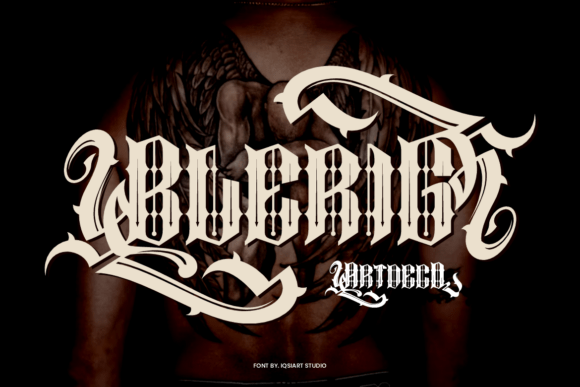
The Blerig Font: A Bold, Art-Deco-Inspired Blackletter Masterpiece
I’ll never forget the design project that led me to discover the Blerig font. I was working on a logo design for a tattoo artist, and I needed a font that would convey a sense of rebellion, strength, and heritage. After hours of searching, I stumbled upon Blerig, and it was love at first sight. The unique blend of traditional Gothic structure and dramatic ornamental flair instantly resonated with the project’s aesthetic. In this article, I’ll share my experience with Blerig, its features, and how to make the most of this stunning font.
An Honest Review of Blerig Font
What I Love About Blerig ✨
- 💥 Highly stylized art-deco-inspired design that commands attention
- 🔥 Elongated vertical forms, spiked serifs, and razor-sharp angles create a dramatic look
- 🎨 Flourished swashes and ink-trap detailing give it a tattoo-like presence
- 👍 Perfect for statement-making logos, tattoo designs, apparel, band merchandise, and vintage signage
While Blerig is an exceptional font, there are a few things to keep in mind:
- 🤔 The font’s complexity can make it challenging to use on smaller scales or in body text
A Practical Guide to Using Blerig Font
The Backstory of Blerig Font
The Blerig font was crafted with inspiration from the opulent art-deco era, combined with the rebellious spirit of tattoo culture. Its designer aimed to create a typeface that would evoke a raw yet refined emotional response, perfect for projects that demand dark elegance and bold storytelling.
Q: What is the best use case for Blerig font?
A: Blerig is ideal for statement-making logos, tattoo designs, apparel, band merchandise, and vintage signage.
Q: Can I use Blerig for body text?
A: While possible, Blerig’s complexity makes it more suitable for headlines, titles, or short text passages.
Q: Is Blerig font suitable for beginners?
A: Blerig’s unique features and OpenType functionality may require some experience with typography and design software.